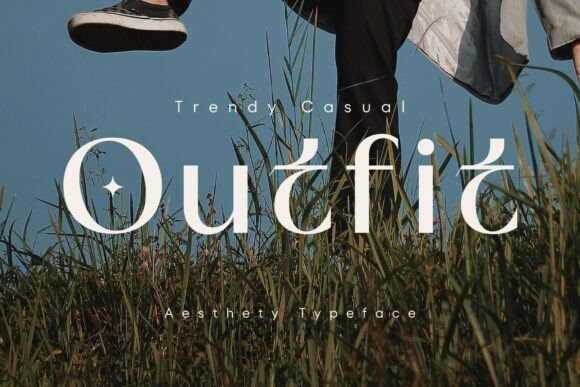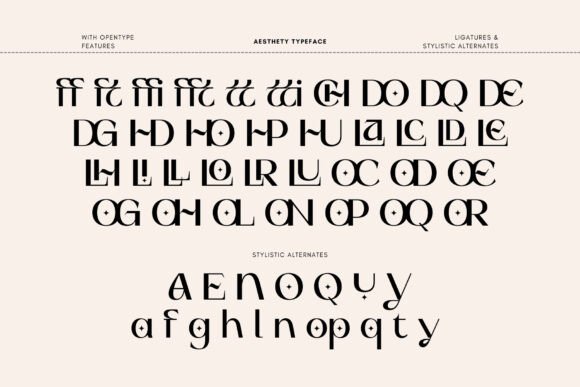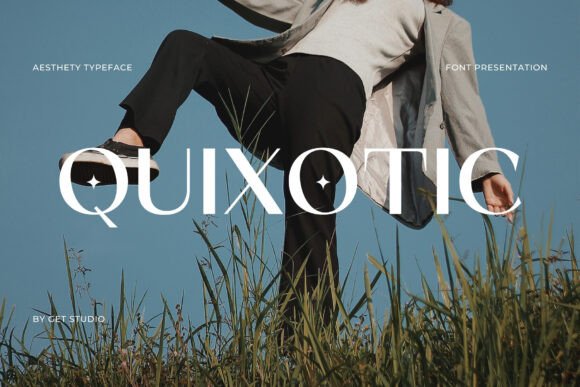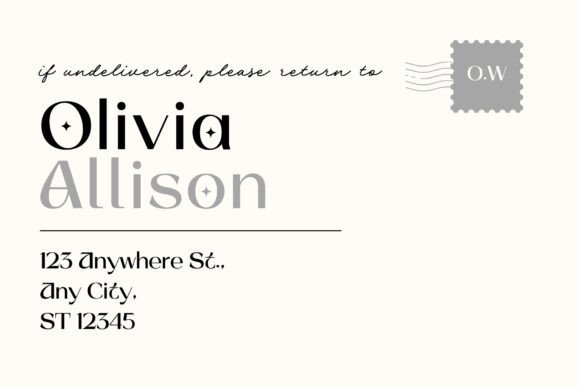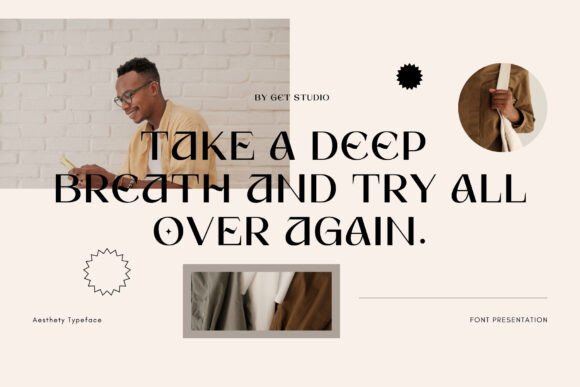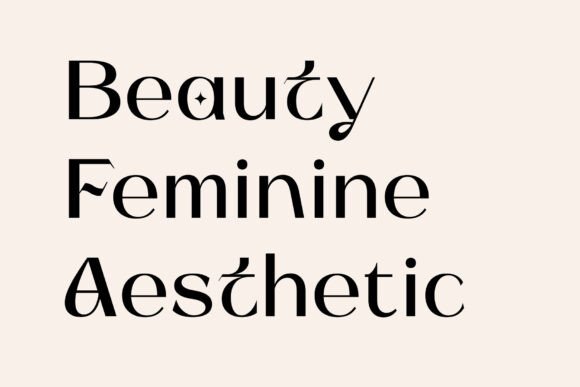
The Perfect Font for the Aesthetic Seeker
Have you ever been scrolling through your social media feed, and suddenly, a beautifully crafted post catches your eye? Maybe it’s a stunning visual, a clever headline, or a captivating combination of both. Whatever it is, you can’t help but stop and appreciate the creativity that went into crafting that moment. For designers, this is the ultimate goal – to create a visual experience that resonates with our audience and leaves a lasting impression.
That’s where the Aesthety Font comes in – a stunning display font designed to exude elegance and sophistication. With its sleek lines and graceful curves, it’s the perfect choice for adding a touch of refinement to any project. Whether you’re working on a branding campaign, crafting a headline, or designing an invitation, the Aesthety Font effortlessly combines style and legibility, making it a valuable addition to any designer’s toolkit.
Aesthety Font Key Features
- Unique Characteristics: Aesthety Font features a unique blend of modern and classic design elements, with intricate details and ornate flourishes that set it apart from other fonts.
- Font Weight and Style: Aesthety Font is available in various font weights, including Light, Regular, Bold, and Extra Bold, as well as italic and oblique styles, providing designers with a range of options for creative expression.
- Scalability: The font is designed to be highly scalable, making it suitable for use in a wide range of applications, from small text to large headlines and titles.
Aesthety Font Review
I recently had the chance to work with the Aesthety Font, and I must say it’s been an interesting experience. Here’s my honest review.
- Beautiful aesthetic: The font has a sleek and modern design that immediately catches the eye. It’s perfect for creating a sophisticated and elegant look.
- Highly legible: Even at smaller font sizes, Aesthety remains easy to read, making it suitable for a wide range of applications.
- Wide language support: The font includes a comprehensive character set, covering multiple languages and scripts.
- May not be ideal for body text: While Aesthety is great for headings and titles, it may not be the best choice for large blocks of text due to its more condensed style.
- Limited bold and italic options: The font’s bold and italic variations, while decent, may not offer the same level of sophistication as some other fonts in this category.
Aesthety is a solid choice for designers looking to add a touch of elegance to their projects. While it may have some limitations, its strengths make it a valuable addition to any font library. With careful selection and application, Aesthety can elevate your designs and leave a lasting impression.
Tips for Getting the Most Out of Aesthety Font
Experiment with different font sizes and combinations to achieve the desired aesthetic. Use Aesthety Font in conjunction with other design elements to create a cohesive look. Consider using Aesthety Font for headings and titles to draw attention to important information.